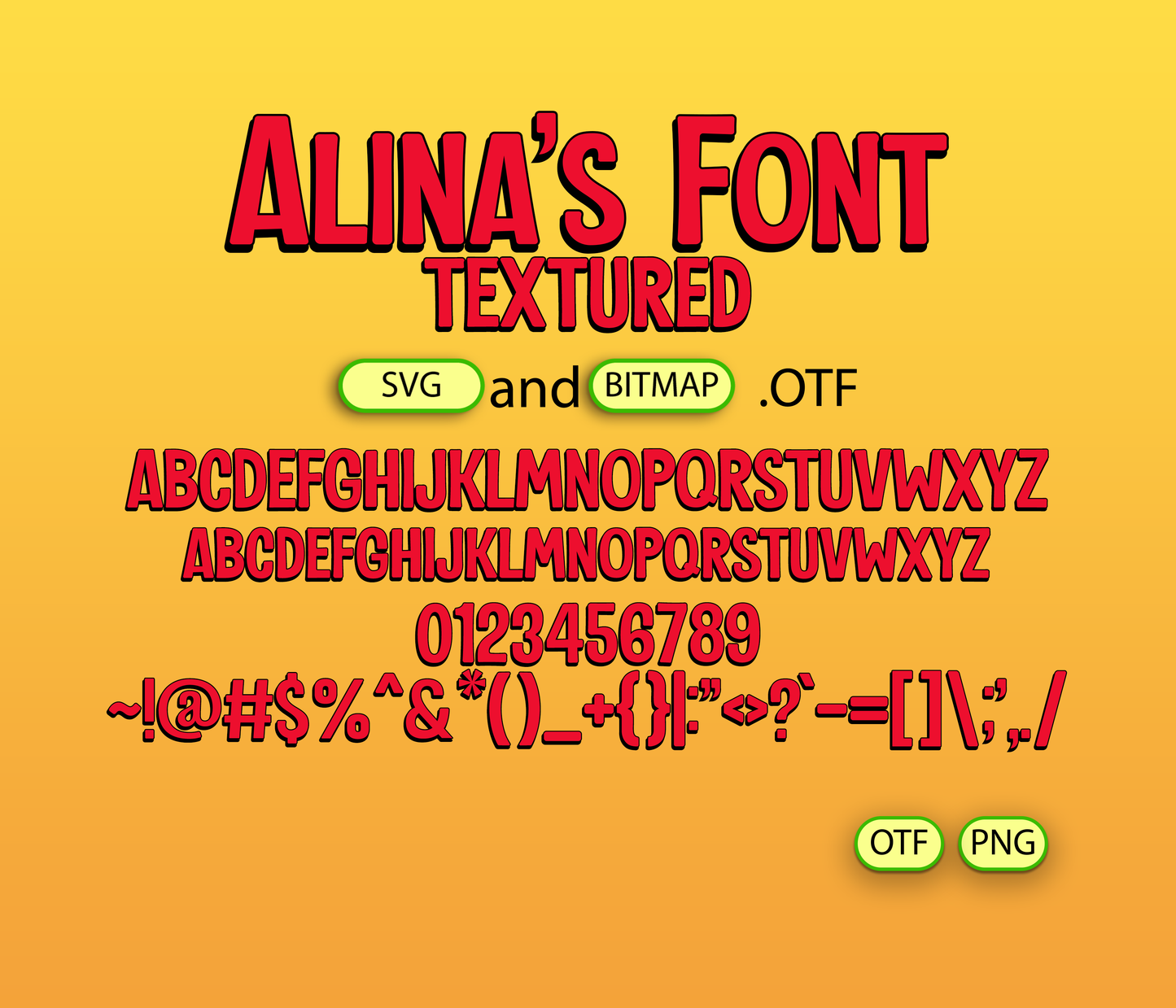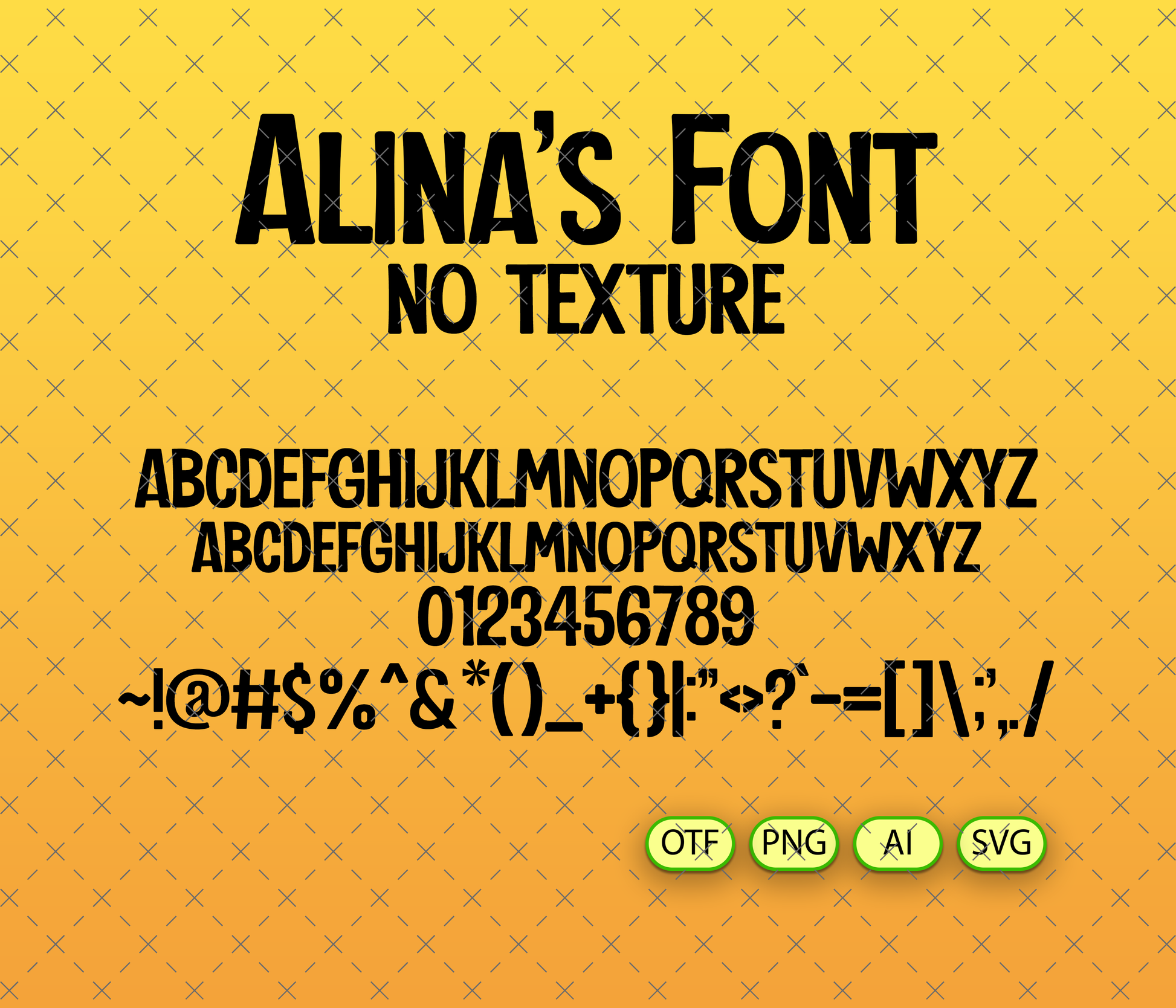
Burger Shop Font Textured
Step into the delicious world of family diners with our Burger Shop Font, capturing the essence of quirky restaurants and heartwarming food adventures. Perfect for restaurant owners, food enthusiasts, event planners, and creative professionals, this font brings the fun, casual spirit of neighborhood eateries to your projects. Create appetizing menus, merchandise, or digital content with the playful energy of family-run burger joints.
Casual Typography for Food Business Design & Restaurant Projects
Our Burger Shop Font features friendly, hand-drawn letterforms with quirky textures reflecting the world of family diners and casual eateries.
- Event Promotions: Create appetizing invitations, posters, and banners for food festivals, restaurant openings, and themed gatherings that capture the spirit of diner culture
- Merchandise Design: Perfect for t-shirts, aprons, menu boards, and accessories that showcase the fun aesthetic of burger restaurants
- Digital Media: Enhance websites, blogs, and social media with playful headers and graphics that express the warmth of family dining
- Creative Content: Add authentic charm to fan art, food blogs, and creative designs inspired by restaurant adventures
- Personal Projects: Bring quirky energy to scrapbooking, DIY crafts, and home decor inspired by the world of casual dining
Our font pays tribute to the world of family restaurants and casual dining, empowering your projects with its playful and welcoming spirit. Whether crafting restaurant materials, designing food products, or adding a quirky touch to personal projects, this font communicates the heartwarming essence of neighborhood eateries. Ready to inject diner charm into your creations? This font is your key to delicious, impactful design.